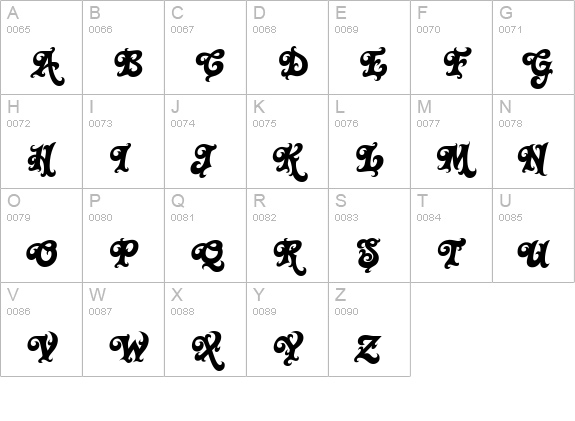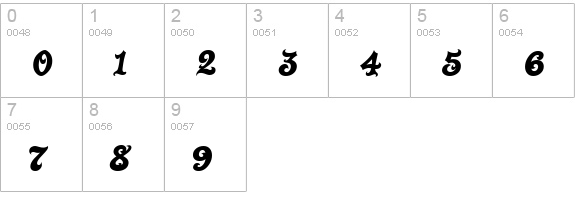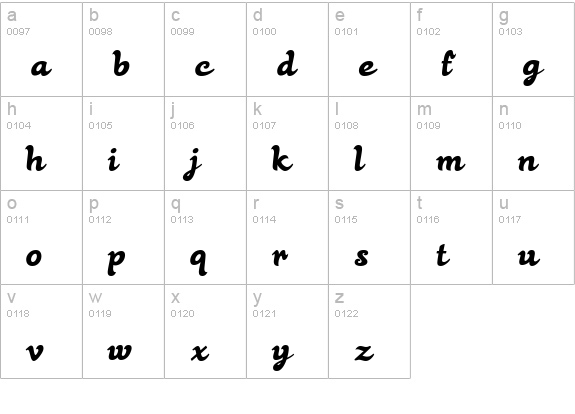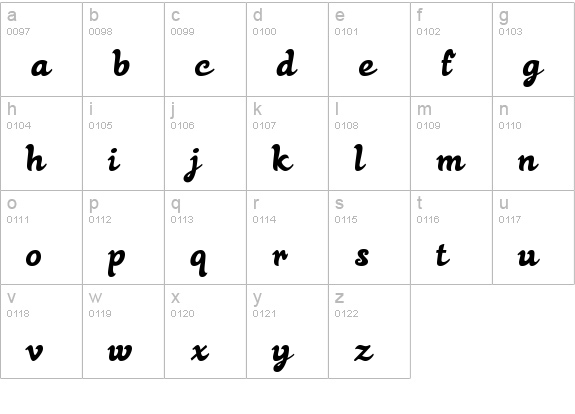
Black Rose Font Details
Black Rose is a maximum-weight, dramatic variant in the Black typeface family \xE2\x80\x94 well suited to maximum-impact headlines, posters, and packaging.
The Black Rose font is a stunning display typeface that exudes elegance and sophistication. Its intricate design features intricate floral motifs that give it a unique and luxurious look. Whether used for invitations, logos, or branding materials, Black Rose is sure to make a bold statement and leave a lasting impression. The best part? Black Rose is completely free to download at FontsMarket.com. This means that you can elevate your design projects without breaking the bank. Don't miss out on the opportunity to add this beautiful font to your collection and take your creations to the next level. Download Black Rose now and let your creativity blossom.